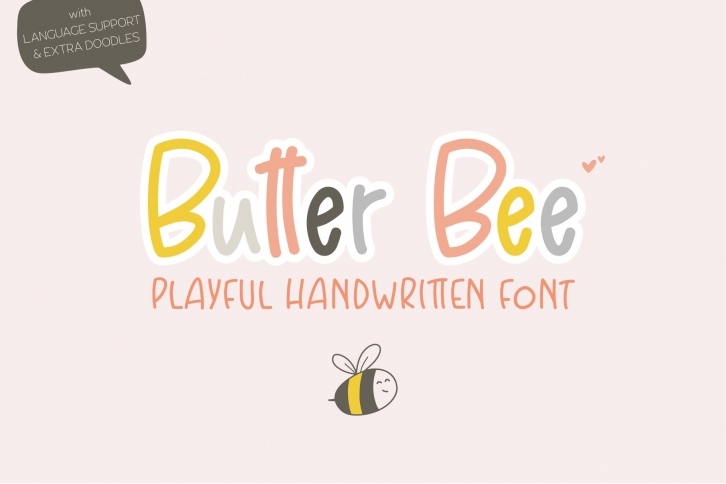
Butter Bee is a super cute and playful handwritten font! It is fun to use for social media images, for cute nursery art or kids apparel, books, greeting cards or stationery.
You will get a set of 198 characters, including uppercase, lowercase, international language support and a set of cute alternates and useful ligatures. Also included is a set of 26 Doodle dingbats.